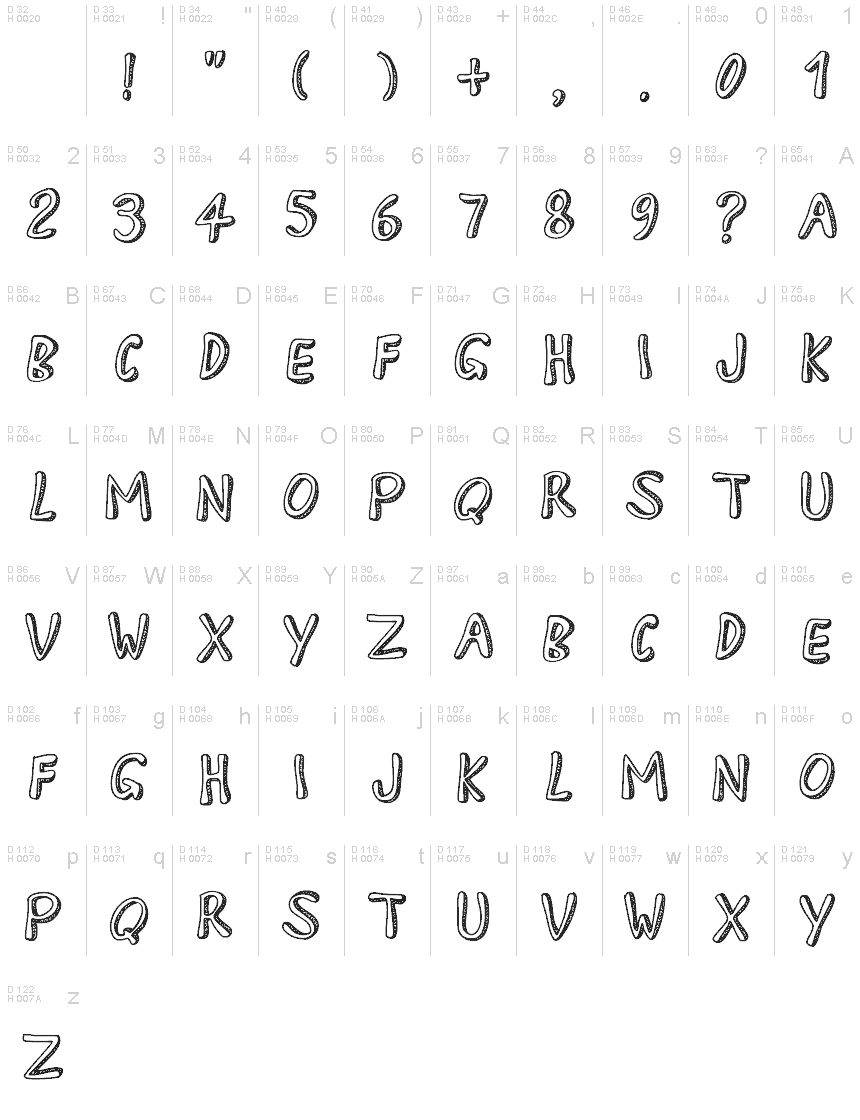
PWApril
PW April is a delightfully whimsical display font that exudes a playful, cartoon-inspired charm. Its irregular, hand-drawn letterforms and varied line thicknesses create a lively, expressive aesthetic, perfect for adding a touch of personality to headings, logos, and other display text. The font's distinctive, irregular edges and quirky character shapes lend an endearing, informal vibe, making it an excellent choice for branding, packaging, and children's content.
PW April's vibrant, energetic style is sure to captivate and engage audiences, making it a versatile addition to any designer's typographic toolkit.